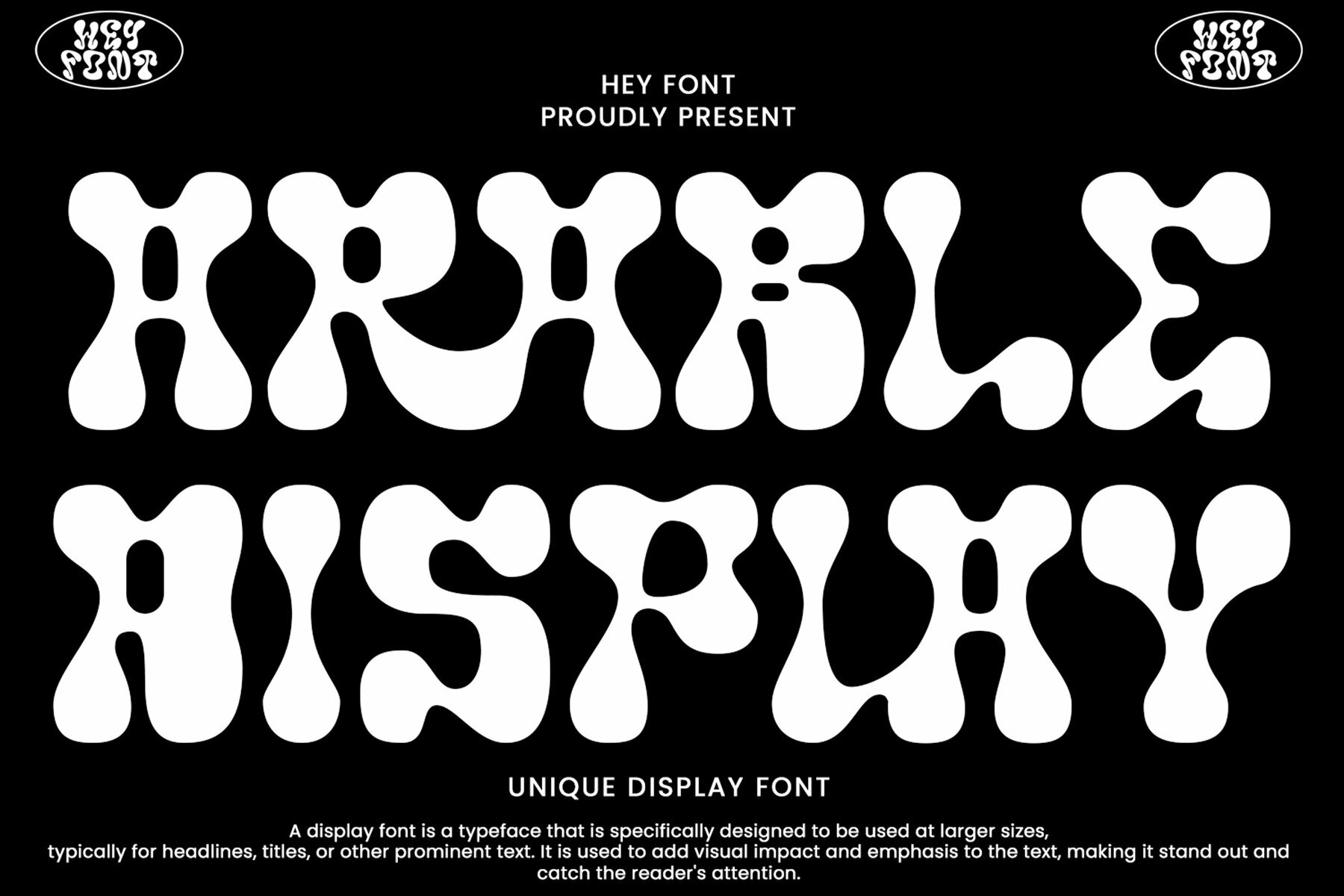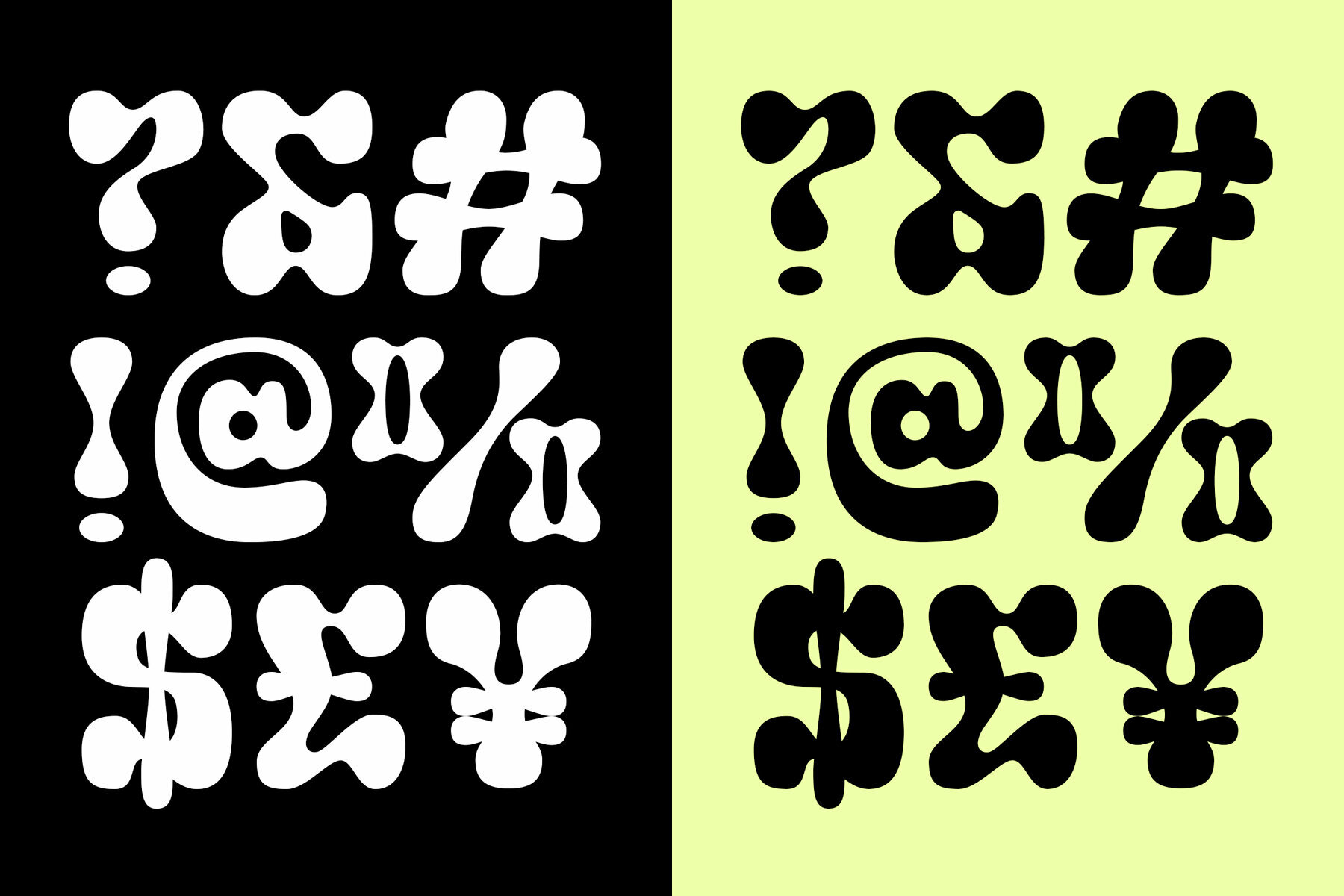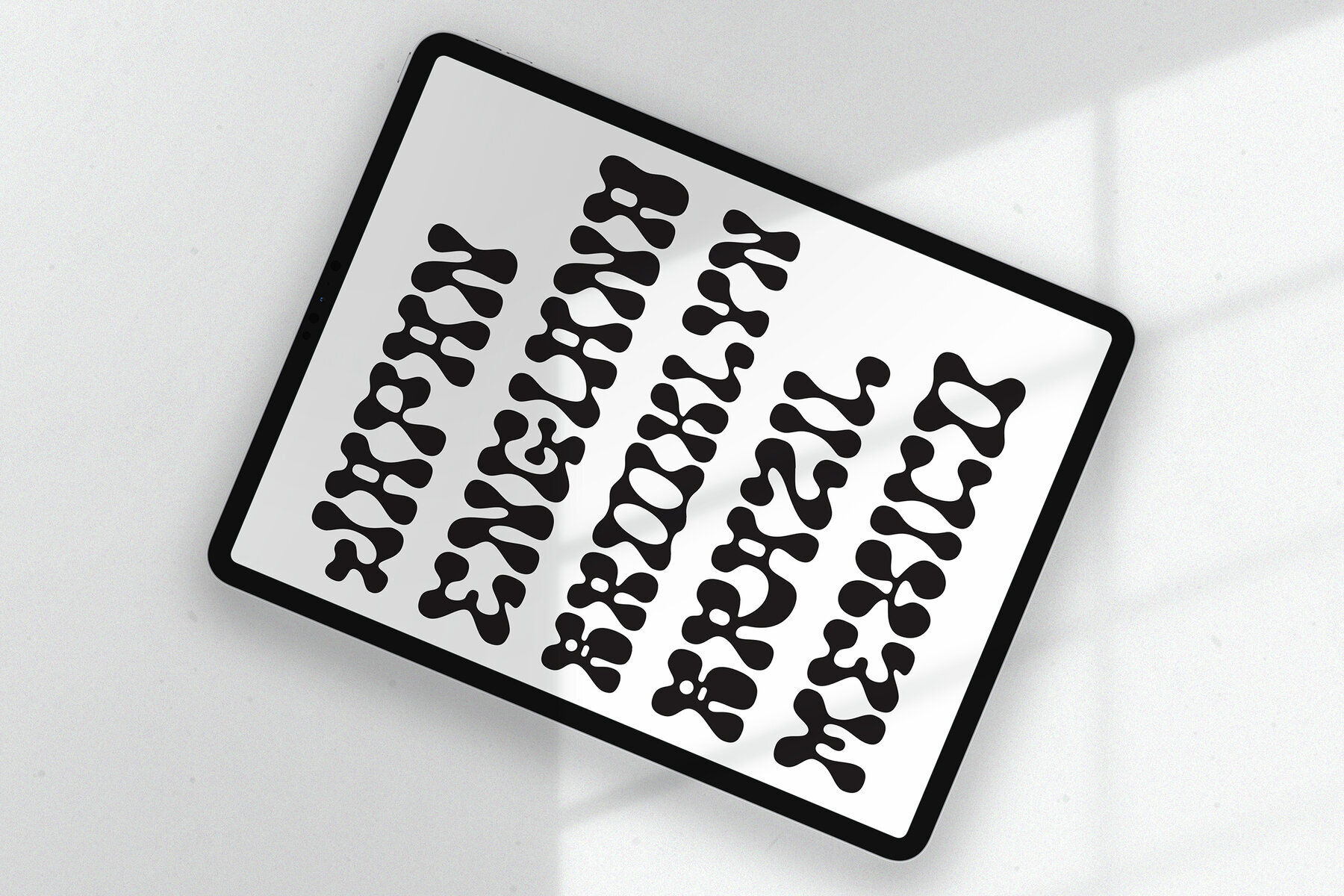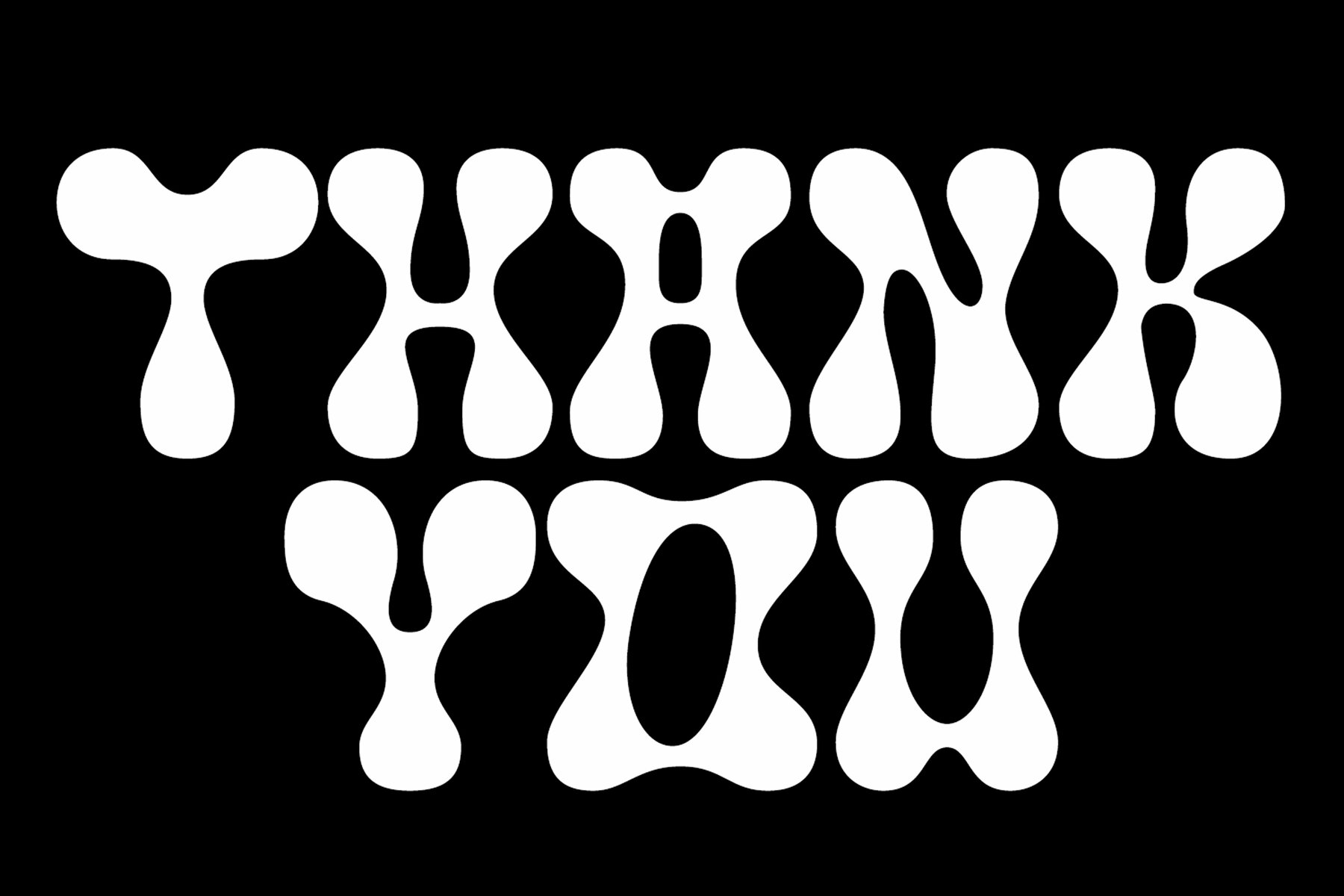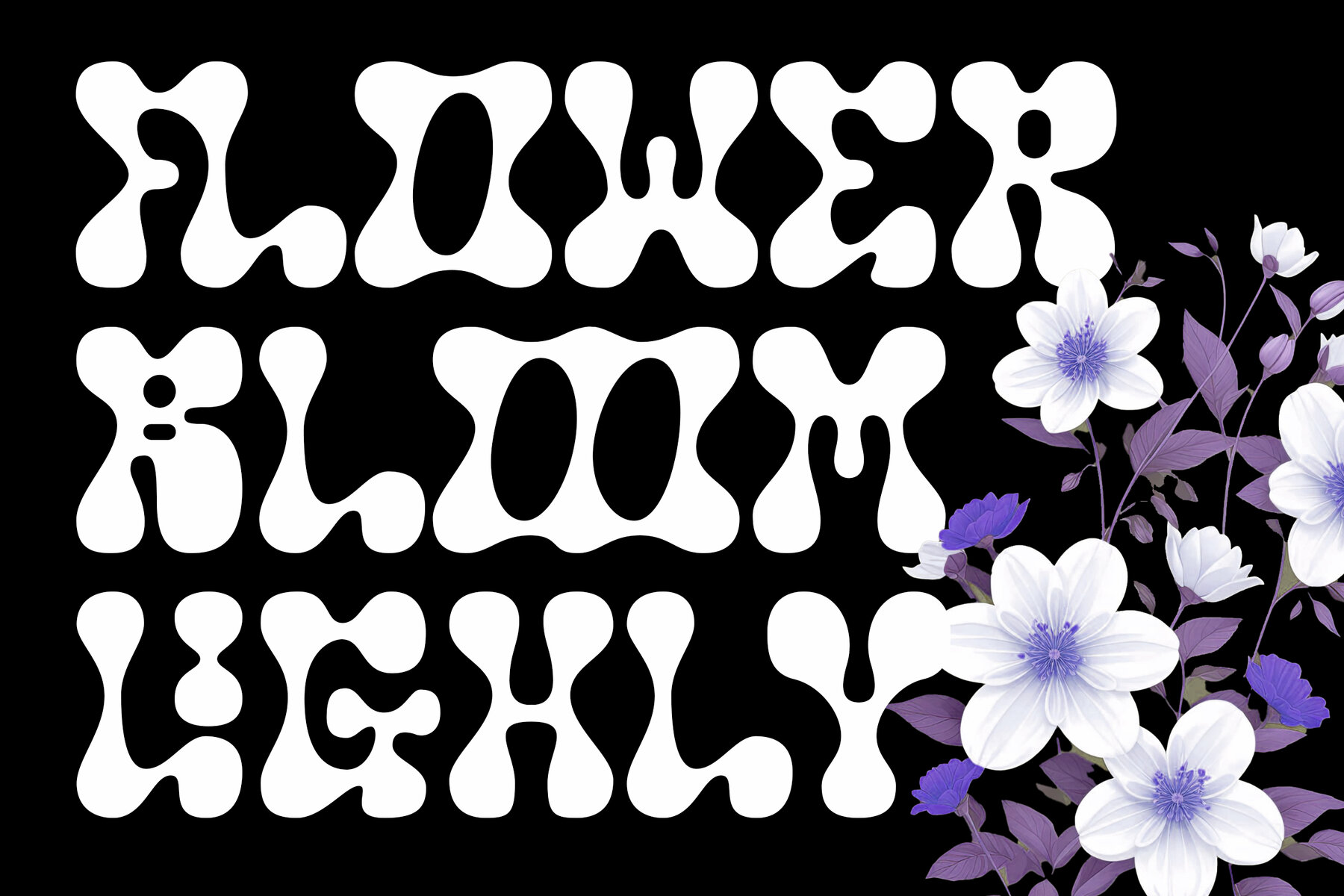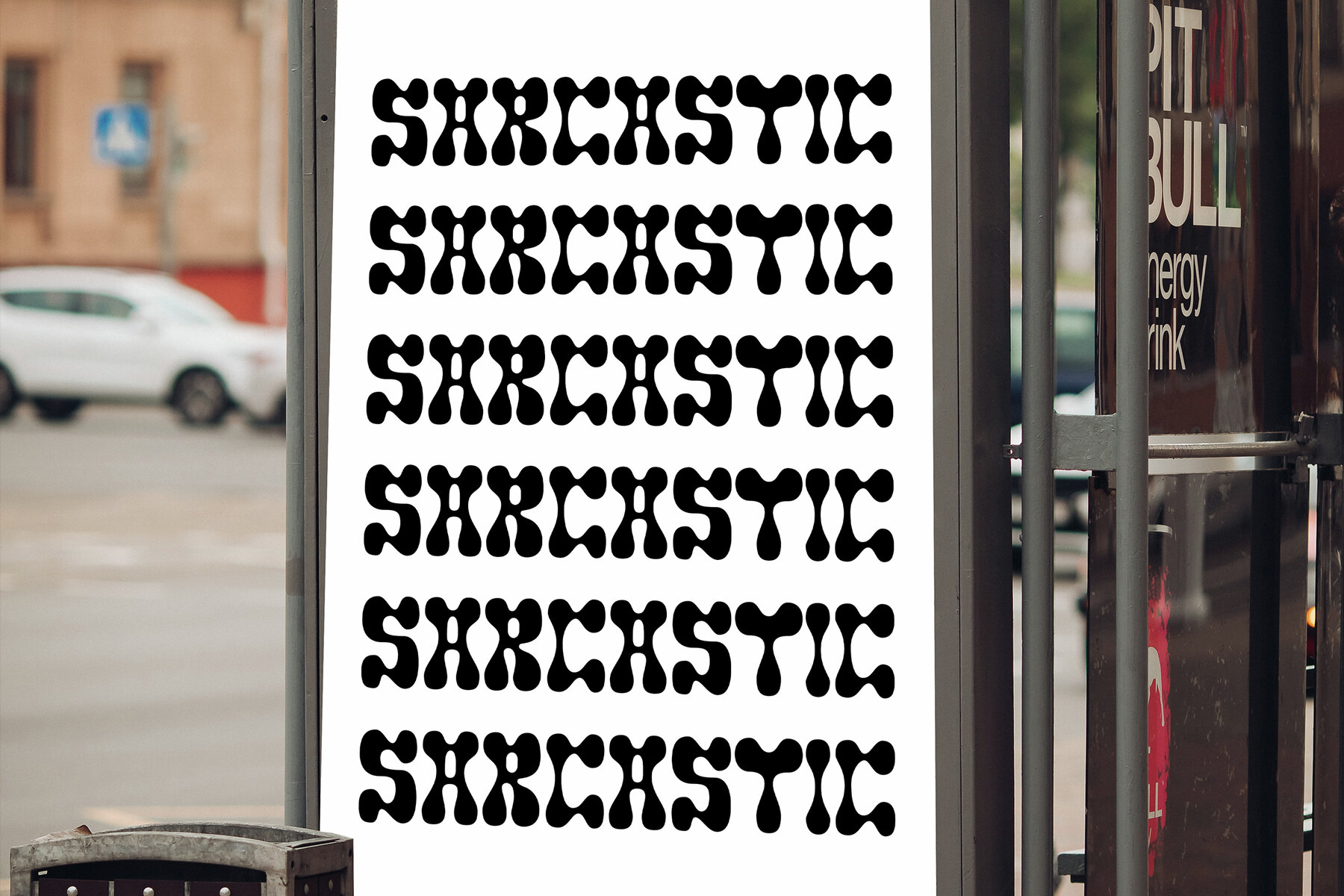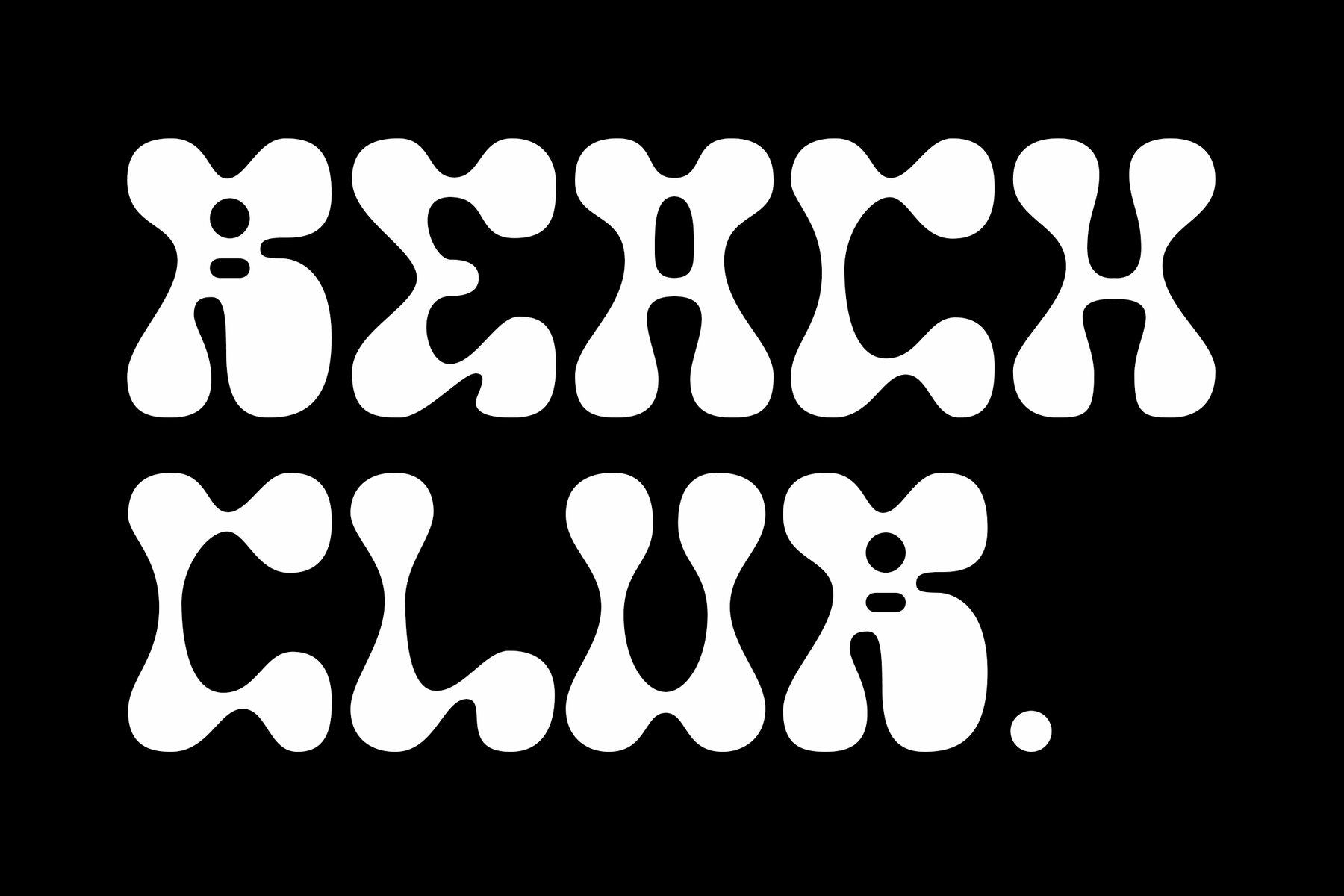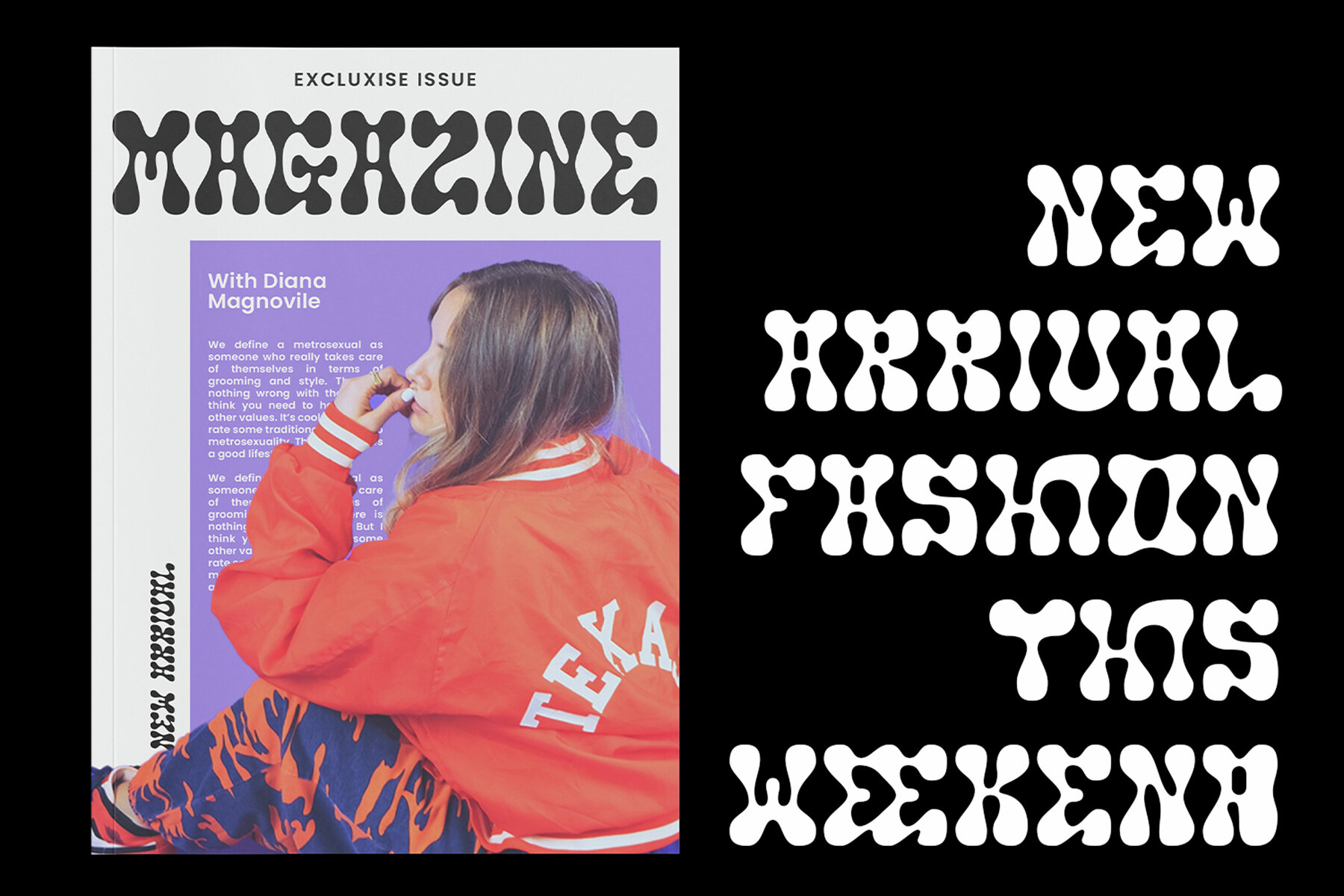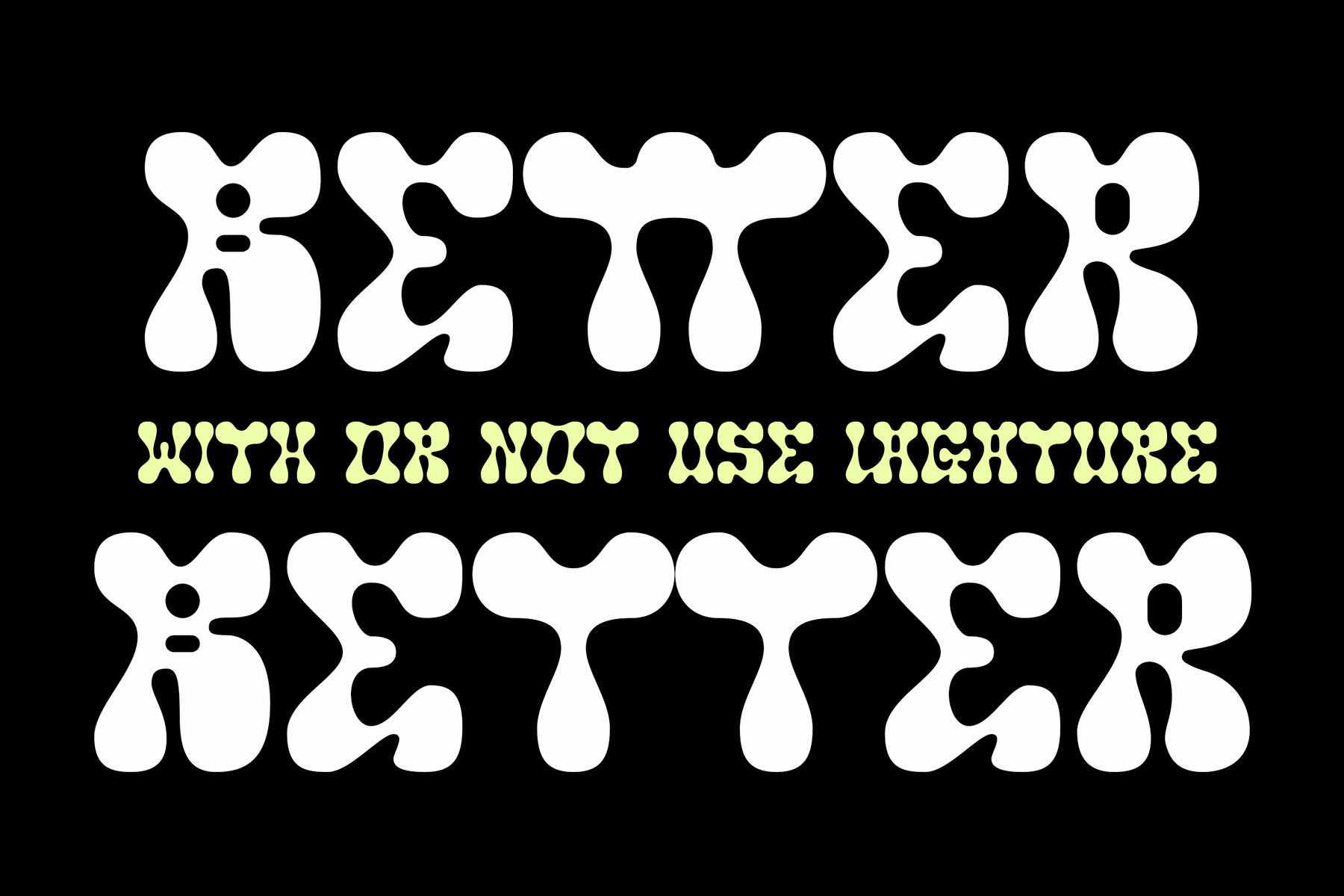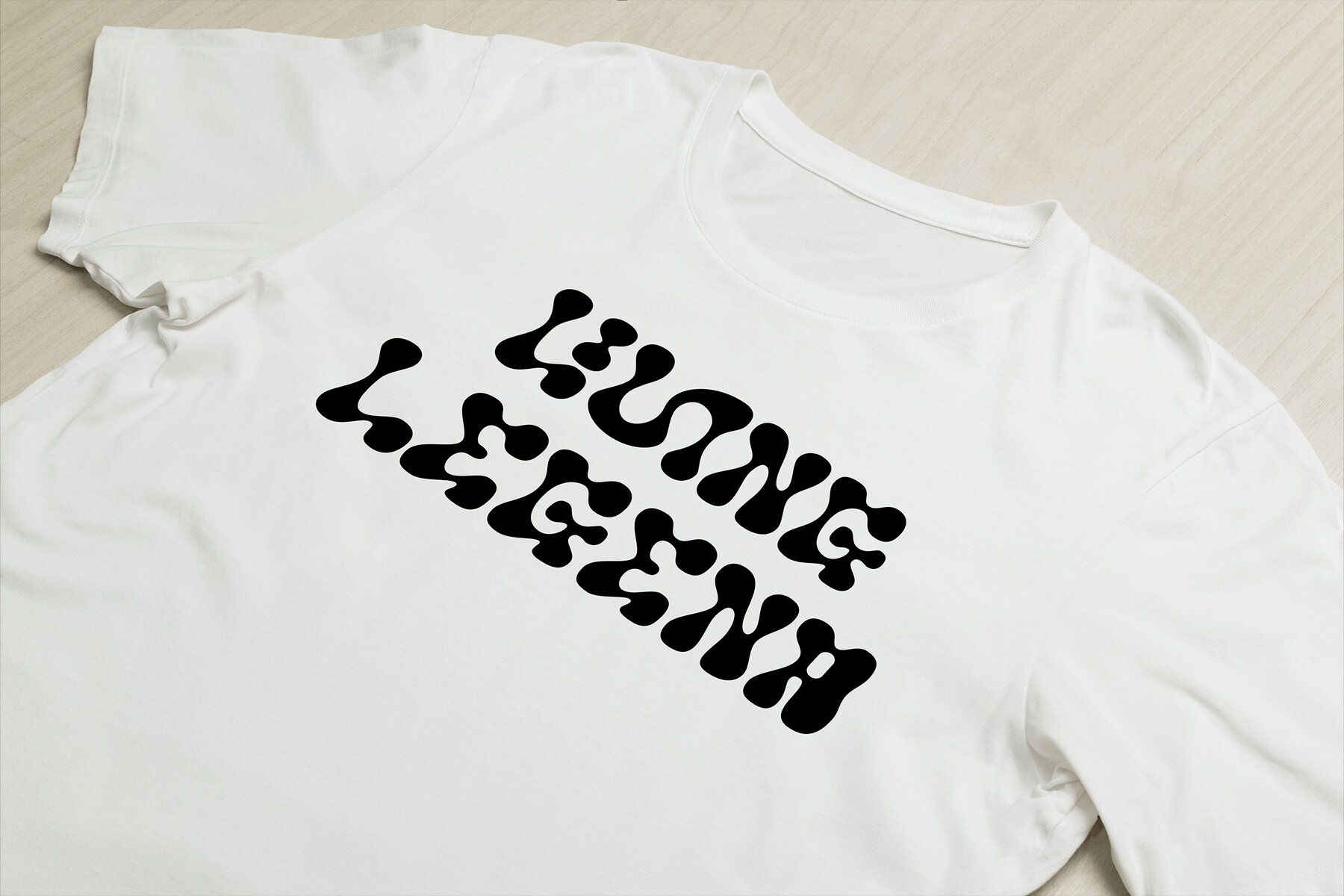
The Arable Font is a distinct type of typography recognized for its unique design, ideal for eye-catching and decorative purposes. Discover the details of what makes a display font like Arable stand out.Arable: A Unique Display Font by Heyfonts
Features of Arable Display Font